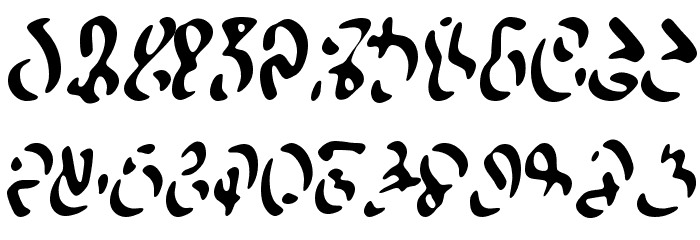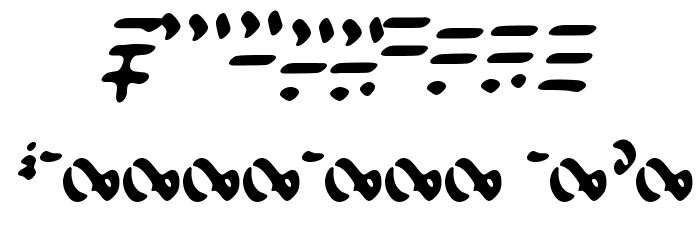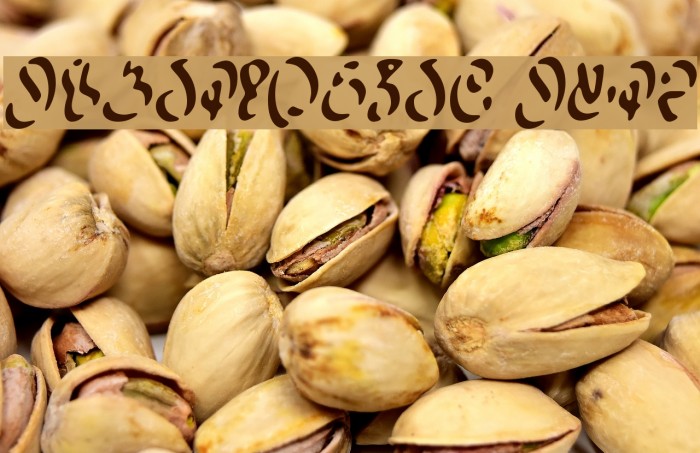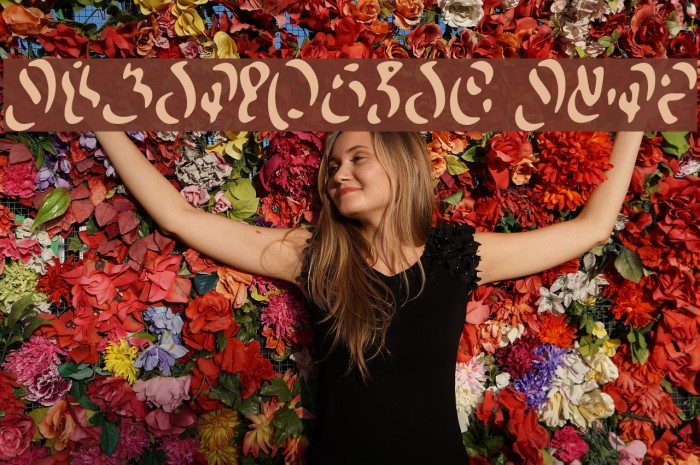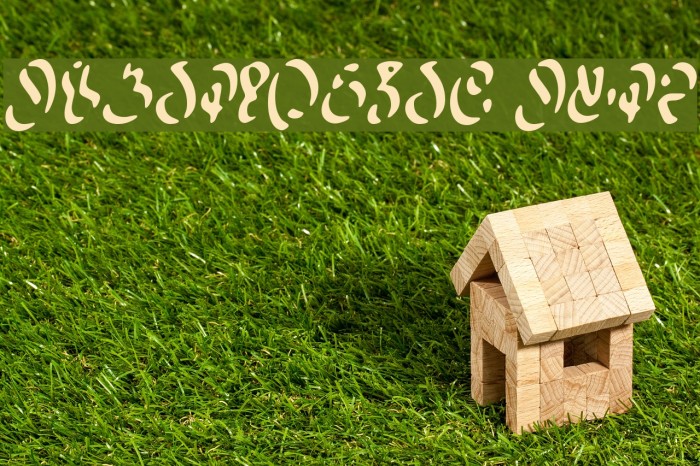
WizardSpeak Worn Font
This font features a highly decorative and abstract design, reminiscent of mystical or ancient scripts. The characters are composed of swirling, interconnected strokes that create a sense of mystery and intrigue. The overall appearance is worn and textured, adding to its enigmatic charm. Each letter is unique, with varying thickness and curvature, giving the font a hand-drawn feel. The special characters are equally ornate, fitting seamlessly with the alphabetic characters. This font is not only visually striking but also evokes a sense of fantasy and magic.
A decorative, mystical font with swirling, abstract characters and a worn texture.
- Proposed Projects: Ideal for fantasy-themed projects, game design, book covers, or any creative work requiring a magical or ancient aesthetic.
- Use Case: Logos, Titles, Creative projects